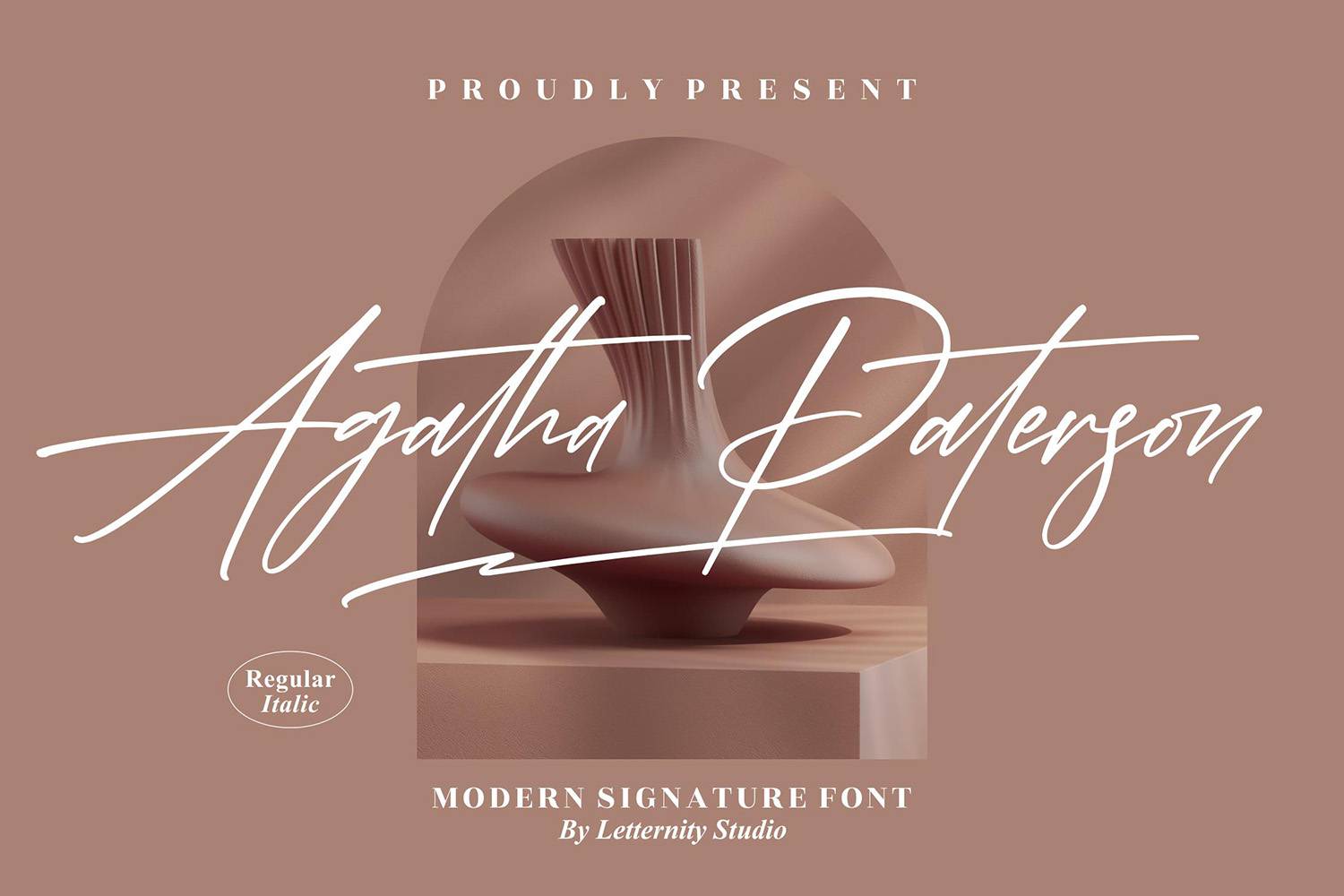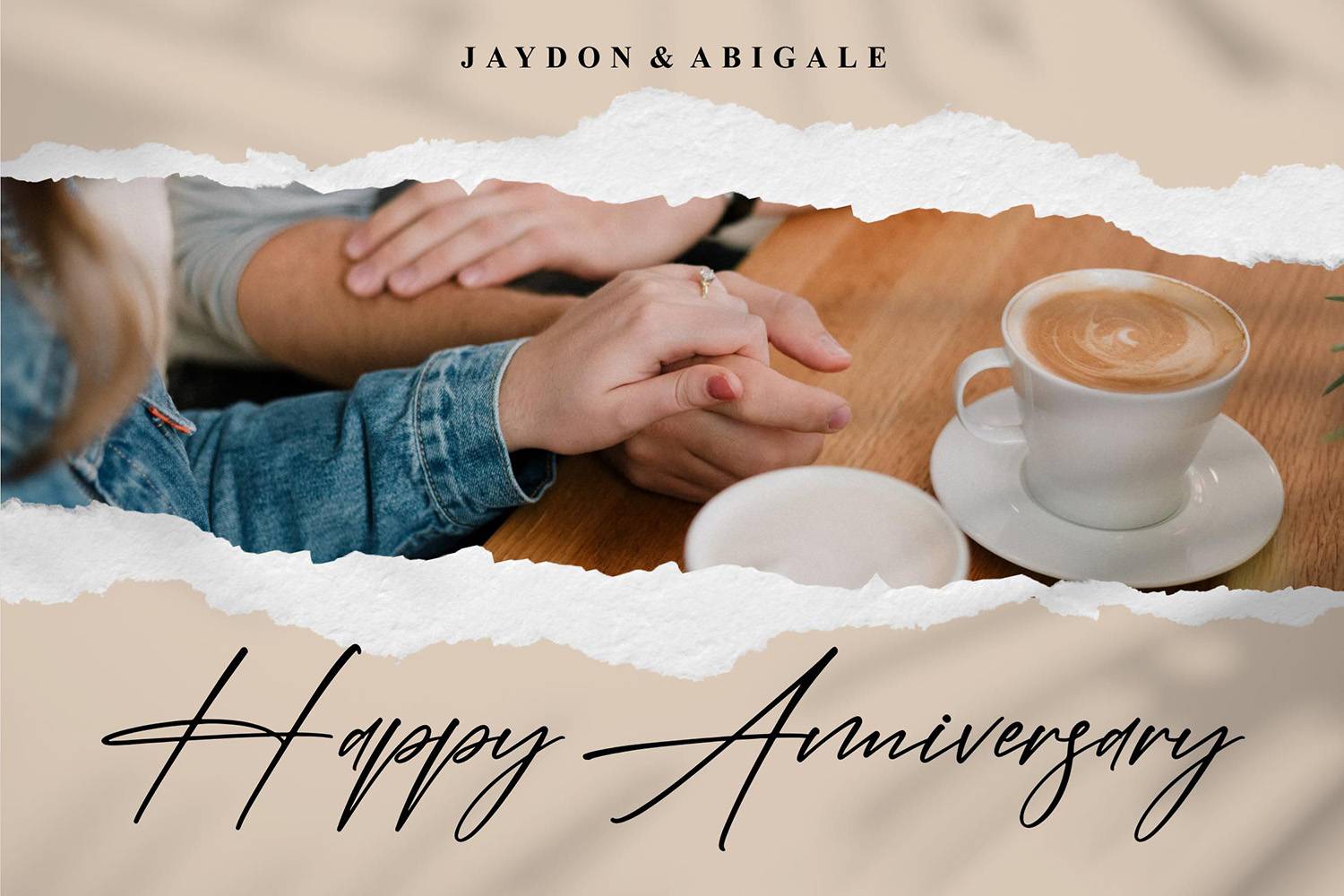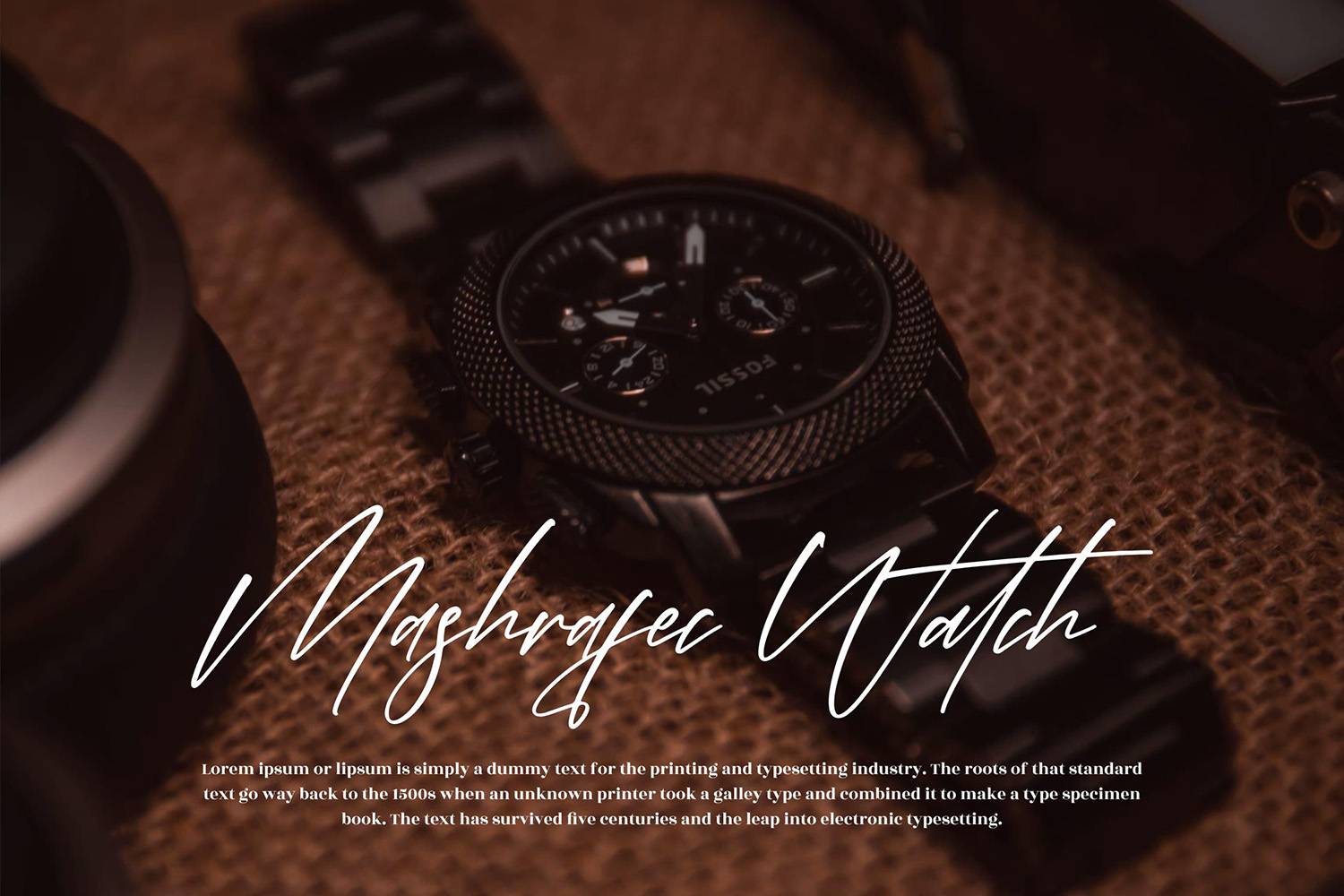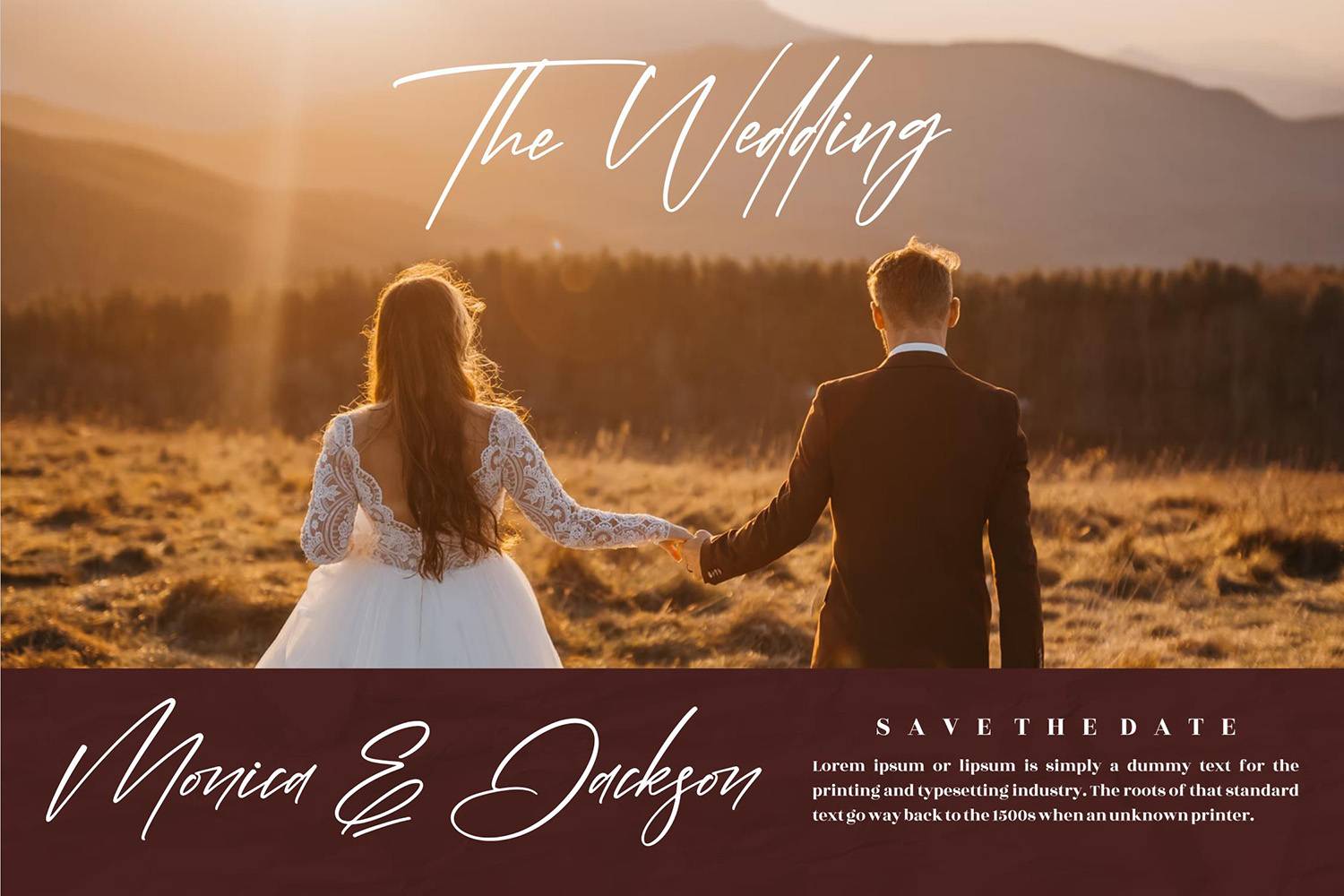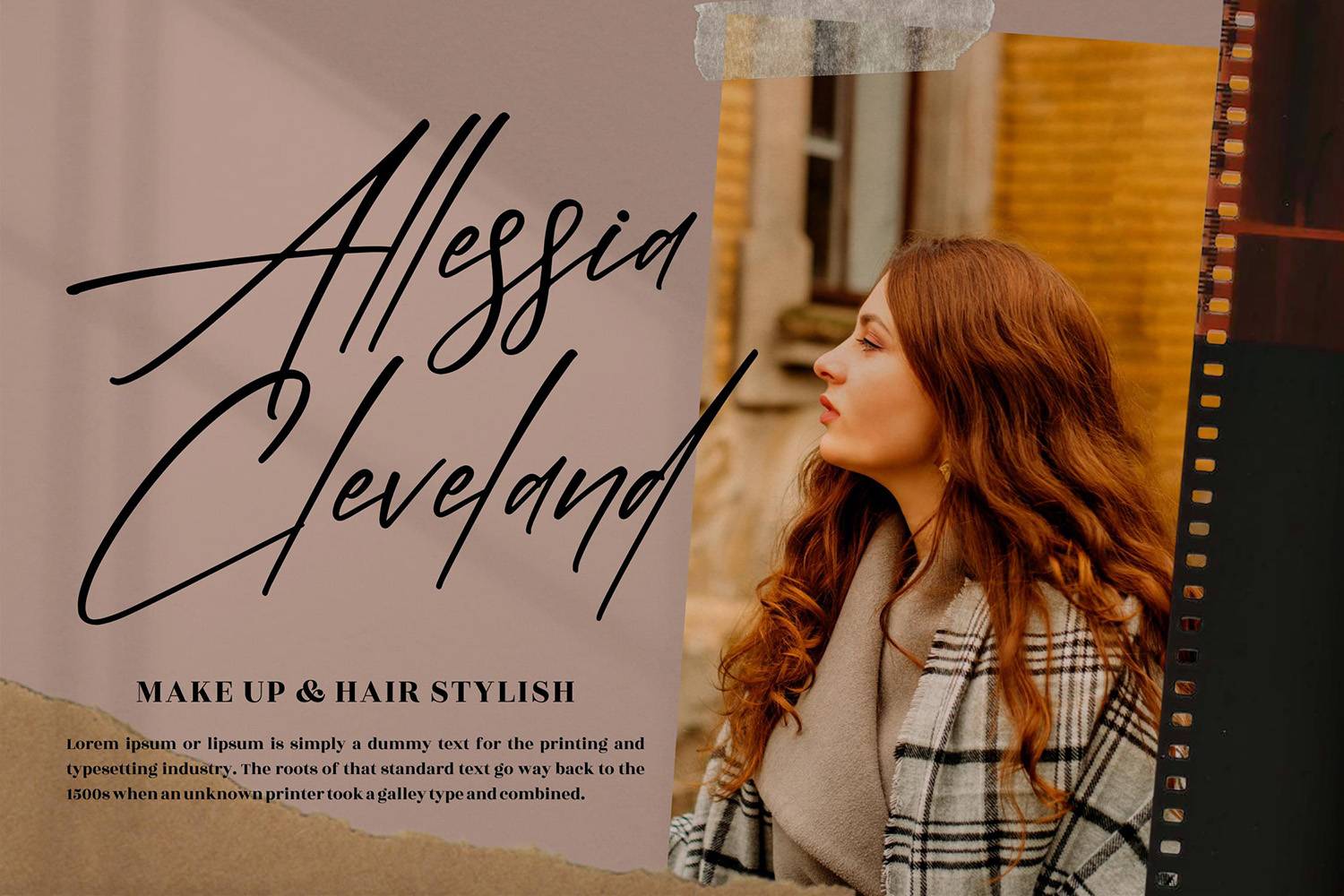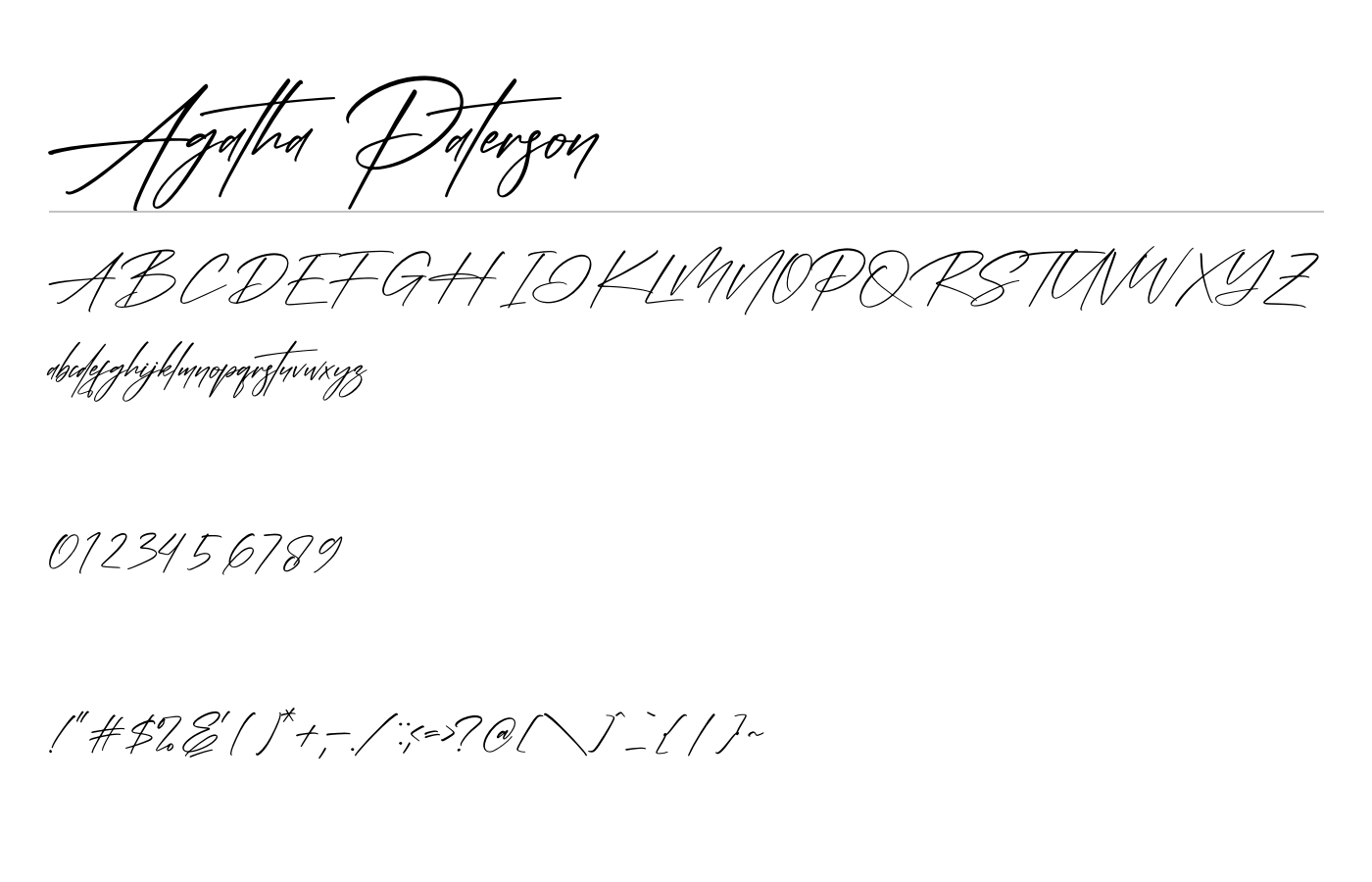
Agatha Paterson is a delicate, handwritten script font characterized by its thin, flowing strokes and elegant, slightly tilted letterforms. Its airy and casual style lends a personal, sophisticated touch perfect for invitations, branding, and editorial designs where a refined, artistic feel is desired. This font works best in larger sizes for headlines or logos, bringing a sense of charm and individuality to any creative project.
Agatha Paterson Font
About Agatha Paterson Font